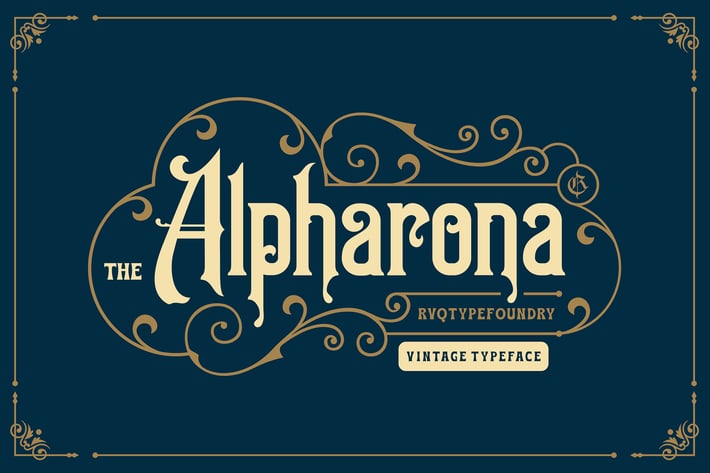
Alpharona Typeface
Alpharona is a vintage blackletter font. To create the beautiful combination, just mix the uppercase and lowercase then mix with the alternative glyphs. The Alpharona Typeface includes a full set of capital and lowercase letters, as well as multi-lingual support, currency figures, numerals, punctuation & some extra glyphs.
- Character Set A-Z
- Numerals & Punctuations (OpenType Standard)
- Accents (Multilingual characters)
- Stylistic Alternates
- ligature